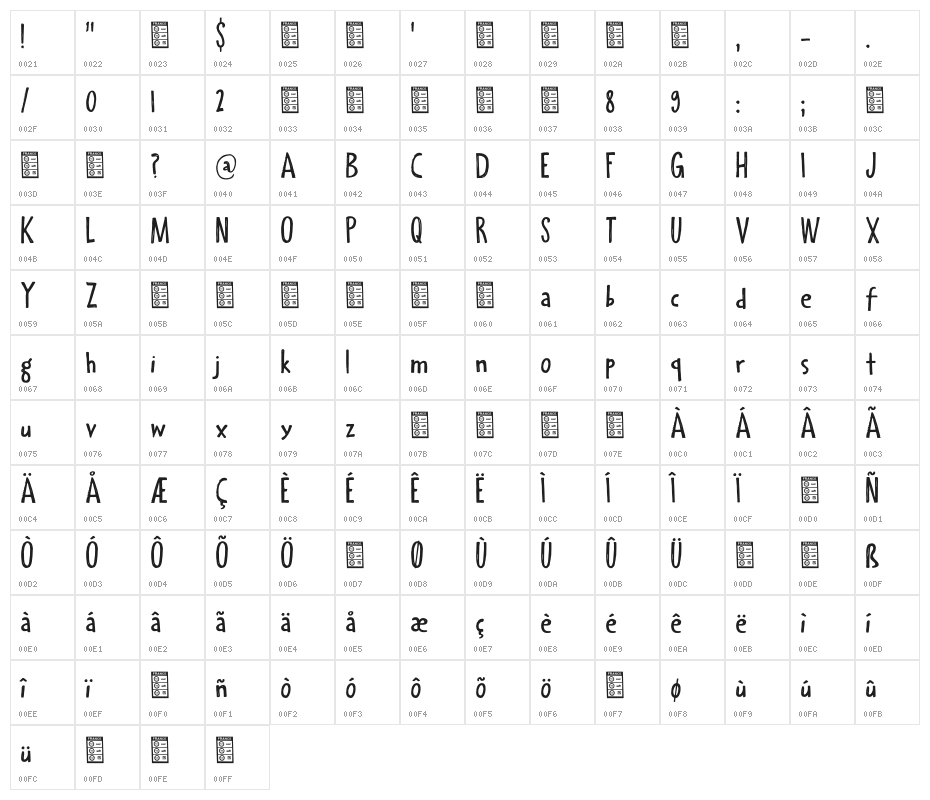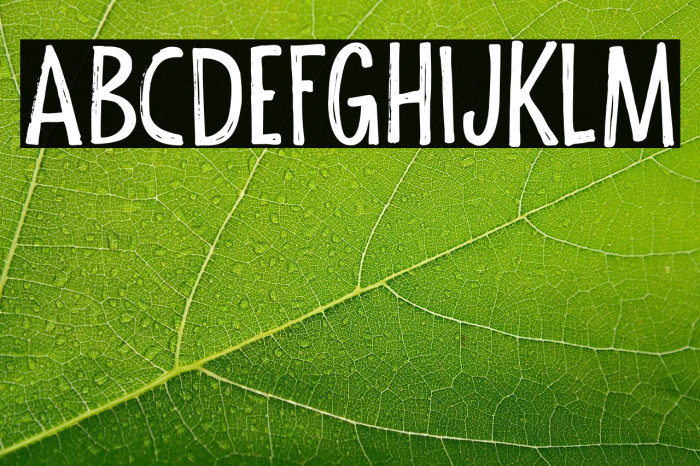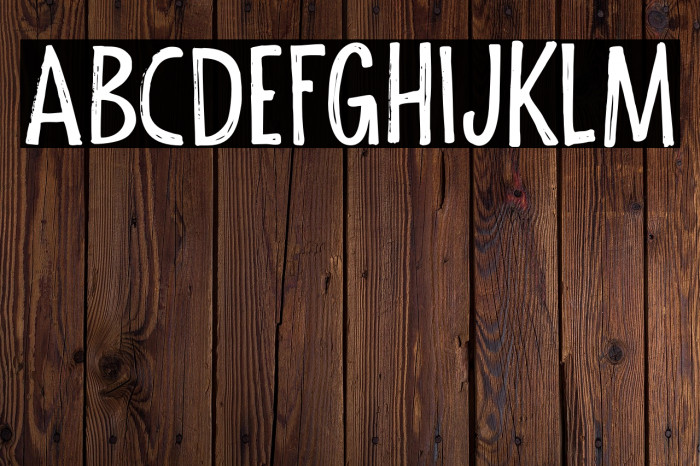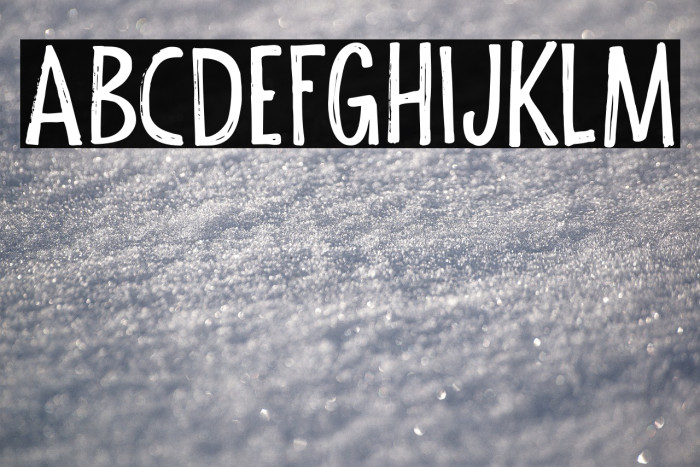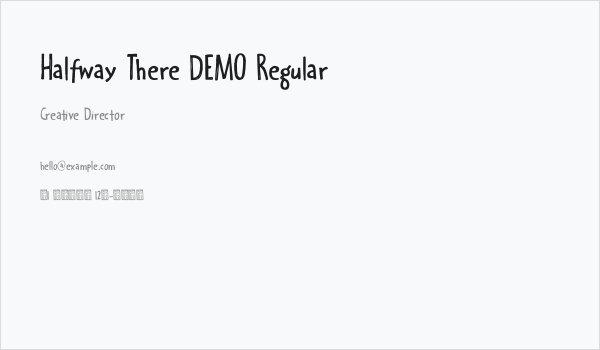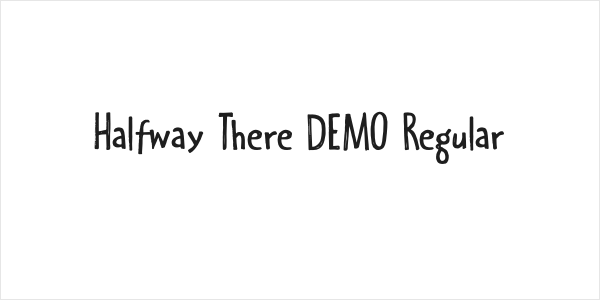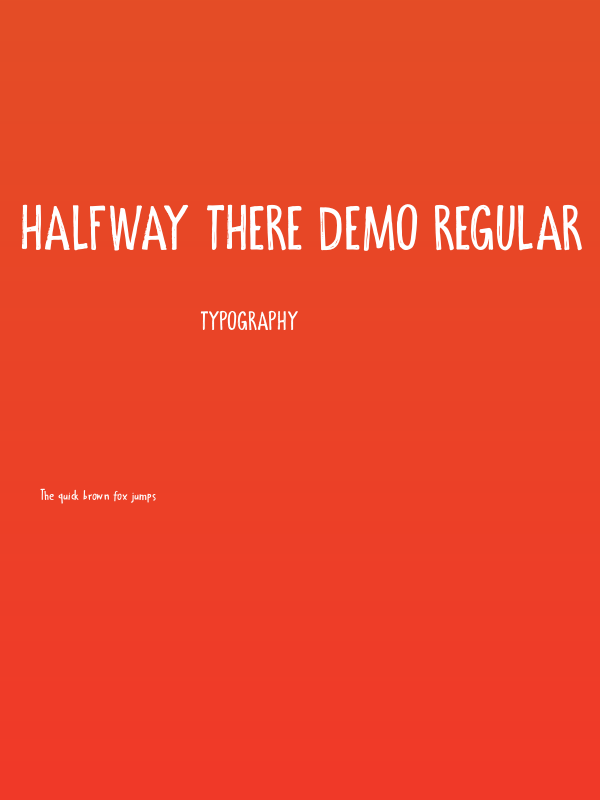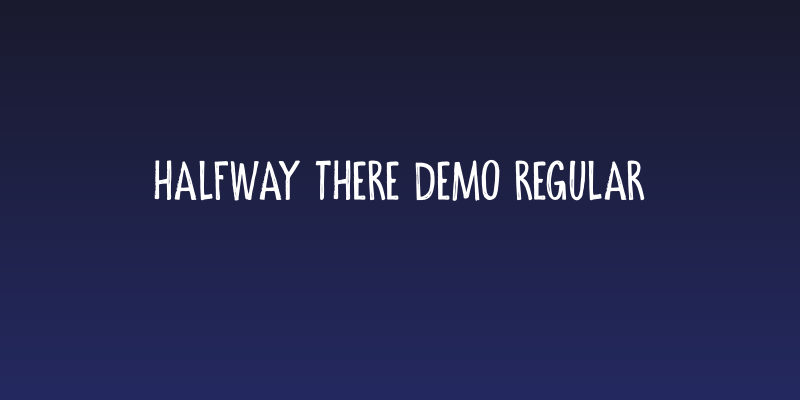
Halfway There DEMO Regular Font
Halfway There DEMO Regular Description
This font features a playful and hand-drawn aesthetic, characterized by its irregular and slightly rough edges. The uppercase letters are bold and prominent, while the lowercase letters maintain a consistent style with a slightly more casual appearance. The numbers are clear and legible, matching the overall quirky style of the alphabet. Special characters are included, maintaining the same hand-crafted look. This font exudes a friendly and approachable vibe, making it suitable for creative and informal projects.
| Proposed Projects | Ideal for children's books, greeting cards, posters, and creative branding projects. |